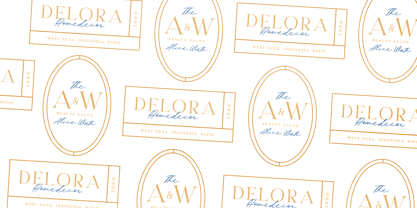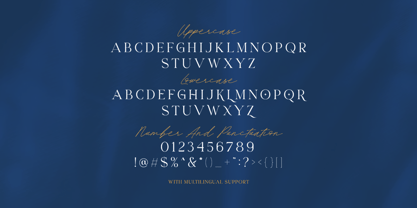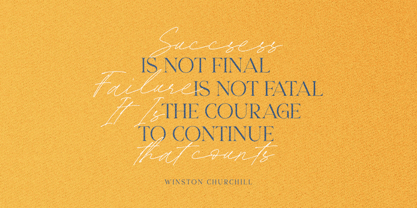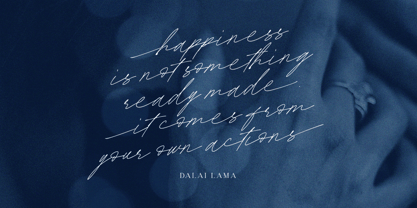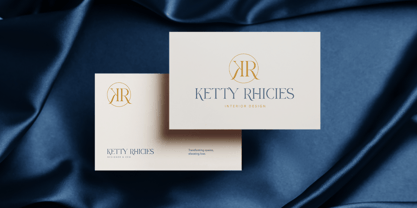
Sophia Hopkins
by Bale Type
The Sophia Hopkins Font Family was designed by Dzikrul Aulia and published by Bale Type. Sophia Hopkins contains 2 styles and family package options. More about this family
Sophia Hopkins is a beauty font duo that contains stylish serif and handwritten script. You can use this font for any purposes such as branding, wedding invitations, logo, and quotes. With stylish lowercase at serif font, you can combine the lowercase and uppercase in the same word to make it more stunning. The script also contains a terminal and end swash. This font duo also support multilingual.